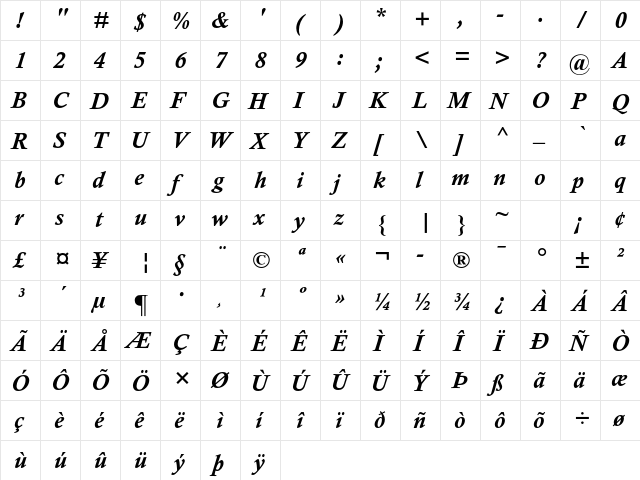
Calisto MT Std Bold Italic
Design Context for Calisto MT Std Typeface
Calisto MT Std is a composed and adaptable typeface that performs quietly and consistently across a wide range of design contexts. Its italic angle brings a sense of urgency and motion to the letterforms. Its bold stroke weight gives it real presence on the page.
Pro Tip: Use Calisto MT Std for emphasis, pull quotes, and subheadings where its slanted energy can add rhythm to the layout.